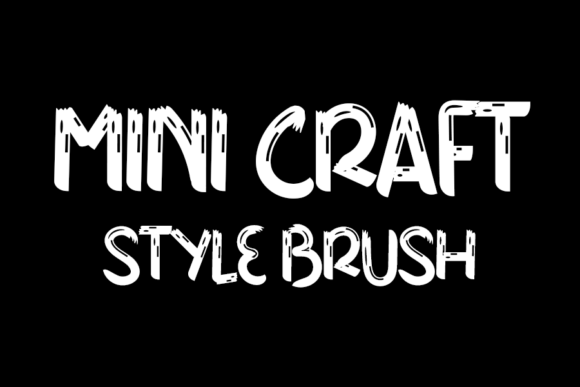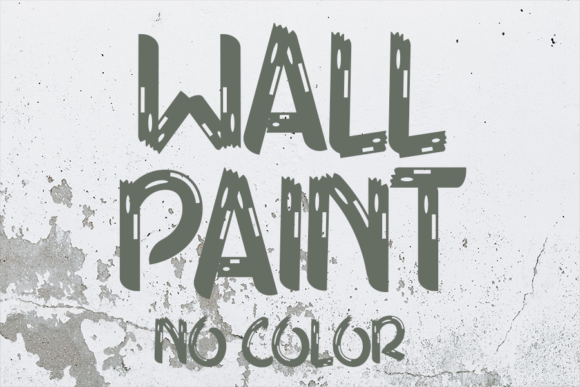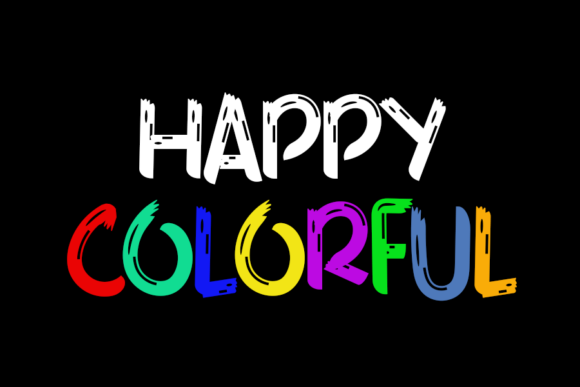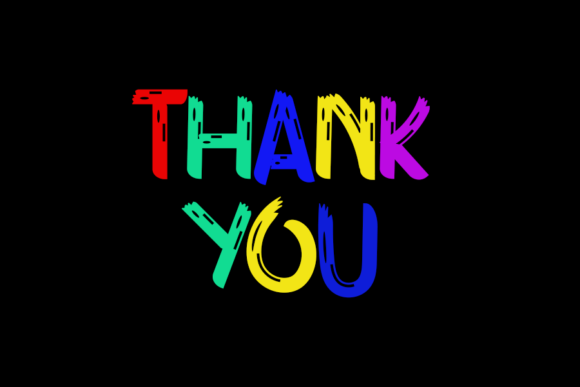
Introduction to Paper Brush Font
Have you ever stumbled upon a design project that just screams for a bold, eye-catching font to elevate it to the next level? That’s exactly what happened to me last week when I was working on a creative project that required a unique touch. After hours of searching, I finally stumbled upon the perfect font – Paper Brush Font.
This incredible display font is a game-changer for any designer looking to add some personality to their work. With its bulky, high-quality design, it’s the perfect addition to any creative project. Whether you’re working on a free download or a paid design, Paper Brush Font is sure to make your work stand out. Plus, its transparent background makes it easy to use on any background, giving you endless design possibilities.
As a valuable design resource, Paper Brush Font is a must-have for any designer looking to take their work to the next level. Its unique style and versatility make it perfect for a wide range of projects, from logos to social media graphics. In this article, we’ll take a closer look at what makes Paper Brush Font so special and how you can use it to elevate your design work.
Key Features of Paper Brush Font
- High-quality design resource ideal for creative projects, offering a unique and artistic touch.
- Unique brush-style font with a textured, hand-drawn appearance, adding a personal touch to your designs.
- Supports multiple languages, making it a versatile design resource for global creative projects.
- Perfect for designers, artists, and writers seeking a distinctive and creative font for their work.
Honest Review: Paper Brush Font
I recently stumbled upon the Paper Brush Font while searching for a high-quality design resource for a creative project. I was excited to give it a try, and I must say, it’s been a great addition to my design arsenal.
What works well: ✨ The Paper Brush Font is incredibly versatile and comes in a range of weights, making it perfect for various design applications. I’ve used it for both digital and print projects, and it always looks great. The font is also a free download, which is a bonus! The transparent background is another feature that I appreciate, as it allows for seamless integration with other design elements.
What doesn’t work well: ⚠️ While the Paper Brush Font is generally high-quality, I’ve noticed that it can be a bit too ornate for some design projects. This can make it difficult to read, especially in smaller font sizes. Additionally, the font may not be suitable for projects that require a more modern or minimalist aesthetic.
Overall impression: I’m really impressed with the Paper Brush Font. It’s a great design resource that can add a touch of elegance to any creative project. With its high-quality design, transparent background, and free download, it’s a must-have for any designer’s library.
The Paper Brush Font is ideal for a variety of design projects, including:
- Invitations and event materials
- Wedding stationery and decor
- Branding and marketing materials
To get the most out of the Paper Brush Font, use it on a transparent background to create a seamless design. Experiment with different font sizes and colors to add depth and visual interest to your design project.